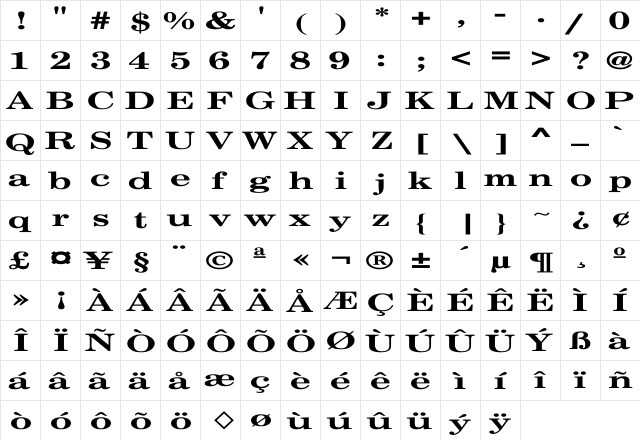
Century Schoolbook Ex Regular Font Preview
Century Schoolbook Ex Regular
Design Context for Century Schoolbook Ex Typeface
Century Schoolbook Ex takes a measured approach to typography — its balanced proportions and neutral character make it a reliable workhorse for both digital and print work.
Pro Tip: Use Century Schoolbook Ex in both headline and body roles to test its range before committing to a single application.